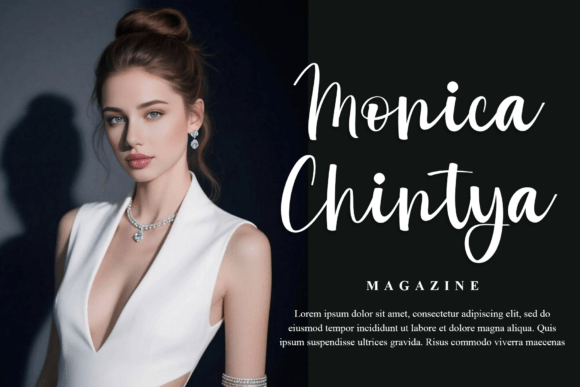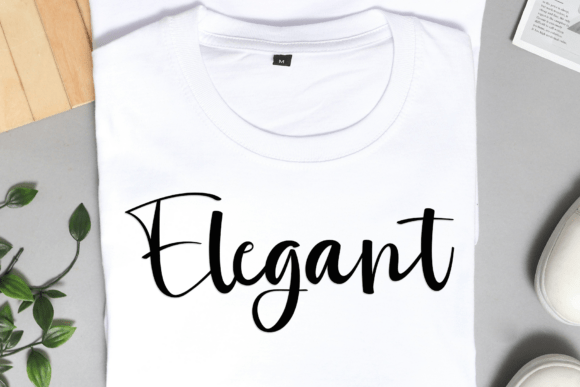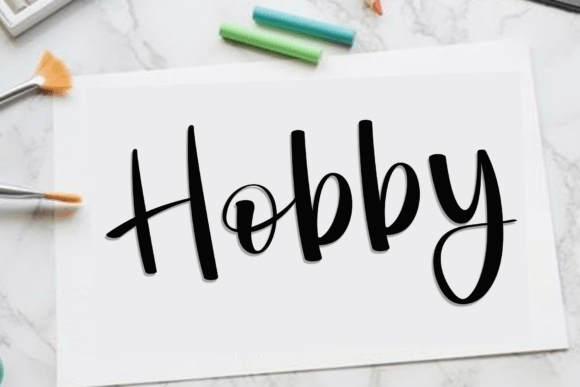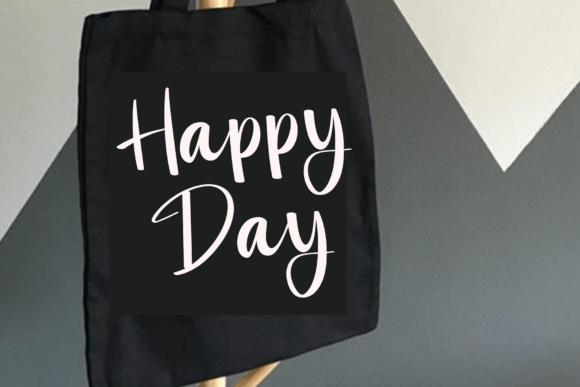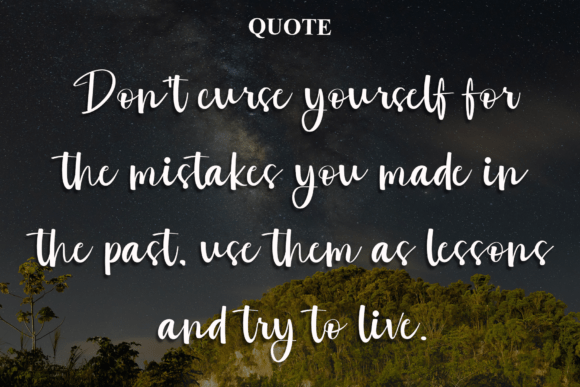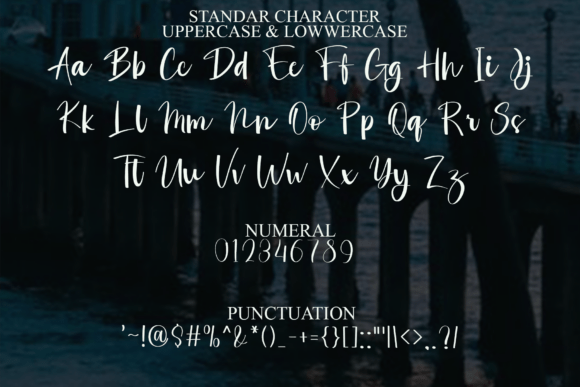
Introducing Blue Eyes Font: A Festive and Merry Typeface for the Holiday Season
Are you looking for a font that captures the spirit of the holiday season? Do you want to add a touch of magic to your designs and make them stand out? Look no further than Blue Eyes Font, a decorative and whimsical typeface that’s perfect for greeting cards, gift tags, and holiday-themed projects.
Blue Eyes Font is a beautifully crafted typeface that’s designed to bring a cheerful and nostalgic ambiance to your words. With its decorative elements and whimsical flair, this font is sure to add a touch of enchantment to your designs. Whether you’re creating holiday greeting cards, gift tags, or festive posters, Blue Eyes Font is the perfect choice.
Blue Eyes Font is a versatile typeface that’s perfect for designers and crafters alike. With its PUA encoding, you can access all of the amazing glyphs and ligatures with ease, making it simple to create beautiful and unique designs. Whether you’re a professional designer or a hobbyist crafter, this font is sure to inspire your creativity and help you create stunning designs.
Key Features of Blue Eyes Font
- Decorative elements: Blue Eyes Font features beautiful decorative elements that add a touch of whimsy and magic to your designs.
- PUA encoded: With PUA encoding, you can access all of the amazing glyphs and ligatures with ease, making it simple to create unique and beautiful designs.
- Festive and merry: This font is designed to capture the spirit of the holiday season, making it perfect for holiday-themed projects.
- Perfect for crafters: Blue Eyes Font is a great choice for crafters who want to add a personal touch to their designs.
Why Choose Blue Eyes Font?
There are many reasons why Blue Eyes Font is the perfect choice for your holiday designs. Here are just a few:
- Unique and eye-catching: This font is sure to make your designs stand out with its unique and eye-catching style.
- Easy to use: With PUA encoding, you can access all of the amazing glyphs and ligatures with ease, making it simple to create beautiful designs.
- Versatile: Blue Eyes Font is a versatile typeface that’s perfect for a wide range of design projects, from greeting cards to posters.
Tips for Using Blue Eyes Font
Here are a few tips for using Blue Eyes Font in your designs:
- Use it for headlines: This font is perfect for headlines and titles, where you want to make a big impact.
- Experiment with colors: Blue Eyes Font looks great in a wide range of colors, so don’t be afraid to experiment and find the perfect color for your design.
- Pair it with other fonts: This font pairs well with a wide range of other fonts, so feel free to get creative and try out different combinations.